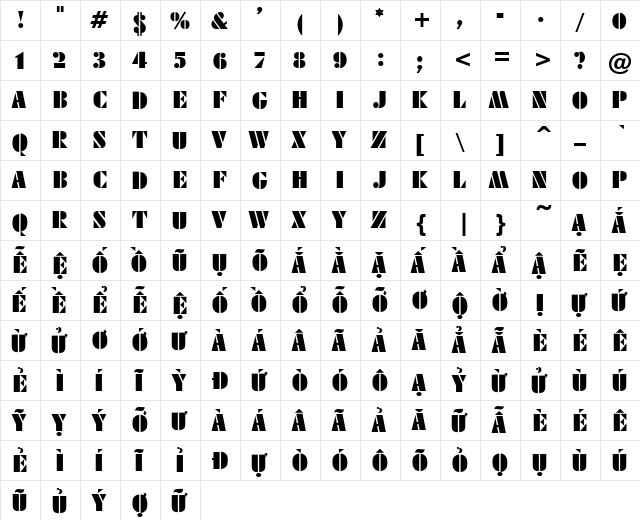
VI Bang Lang Hoa Normal Font Preview
VI Bang Lang Hoa Normal
Design Context for VI Bang Lang Hoa Typeface
VI Bang Lang Hoa is a composed and adaptable typeface that performs quietly and consistently across a wide range of design contexts.